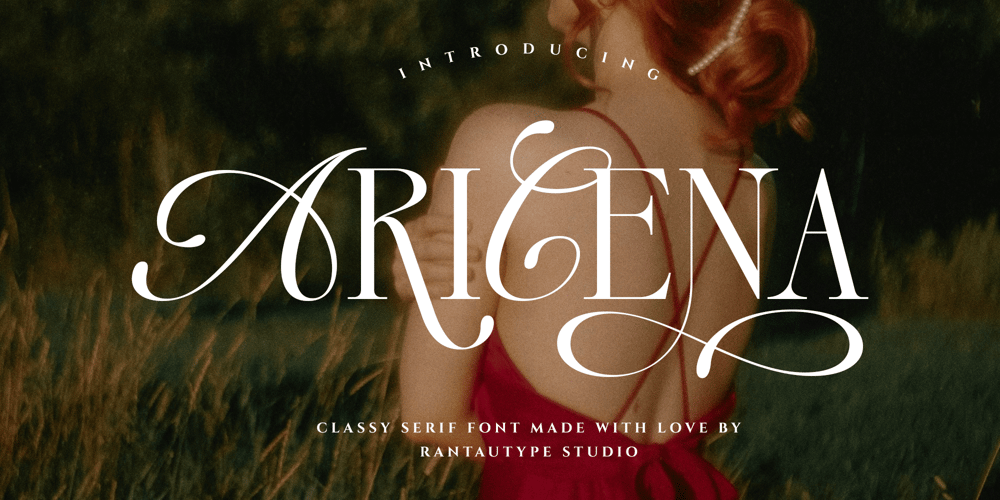
Aricena Font Family was designed by Yudi Pratama Chandra and published by RantauType. Aricena contains 2 styles and family package options. Aricena is modern font with blend script and serif font that embraces elegance. Aricena bring with beautiful touch of charm and femininity make your design stand out! We keep this font look elegant, luxury, feminity and easy to use.Aricena is a beautiful choice for any creative endeavor, creating elegant, modern, chic, lifestyle design such as logotype, title, cover, branding, invitations, wedding designs, display and magazine, social media posts, advertisements, printed quotes, product packaging, corporate brand, product designs, labels, photography, watermarks, special events and any other project with elegant touch.What you have: Standart Glyphs Numberial and Functional Alternate and ligature Works on PC & Mac Simple installations Accessible in Adobe Illustrator, Adobe Photoshop, Adobe InDesign, even work on Microsoft Word. Fonts include Multilingual Character for: Afrikaans, Albanian, Asu, Basque, Bemba, Bena, Breton, Chiga, Cornish, Dutch, English, Estonian, Filipino, Finnish, Friulian, Galician, Gusii, Indonesian, Irish, Italian, Kabuverdianu, Kalenjin, Kinyarwanda, Luo, Luxembourgish, Luyia, Machame, North, Oromo, Portuguese, Quechua, Romansh, Rombo, Rundi, Rwa, Samburu, Sango, Sangu, Scottish, Gaelic, Sena, Shambala, Shona, Soga, Somali, Spanish, Swahili, Swedish, Swiss, German.Thank you for your purchase!Hope you enjoy with our font!